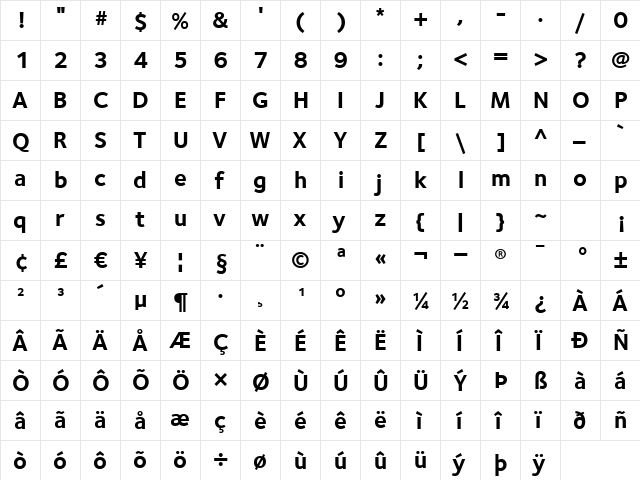
FoundrySterling-Bold Regular Font Preview
FoundrySterling-Bold Regular
FoundrySterling-Bold Regular Font Details
Design Context for FoundrySterling-Bold Typeface
FoundrySterling-Bold is a composed and adaptable typeface that performs quietly and consistently across a wide range of design contexts. Its bold stroke weight gives it real presence on the page.
Pro Tip: Use FoundrySterling-Bold in both headline and body roles to test its range before committing to a single application.